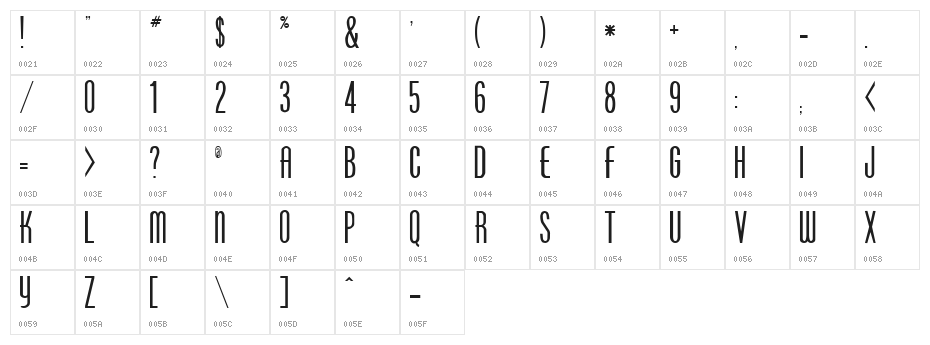
Phoenix Regular Font
Phoenix Regular Description
This font features a tall and narrow design, characterized by its elongated letterforms and clean lines. The uppercase letters are particularly striking, with a uniform height that creates a cohesive and modern appearance. The lowercase letters maintain the same narrow structure, providing a seamless transition between cases. The numerals are consistent with the overall style, offering clarity and readability. Special characters are well-integrated, ensuring versatility in various design contexts. The font's sleek and contemporary aesthetic makes it suitable for projects that require a modern and professional look.
| Width | Condensed |
| Proposed Projects | Ideal for branding, editorial design, posters, and web design where a modern and professional look is desired. |